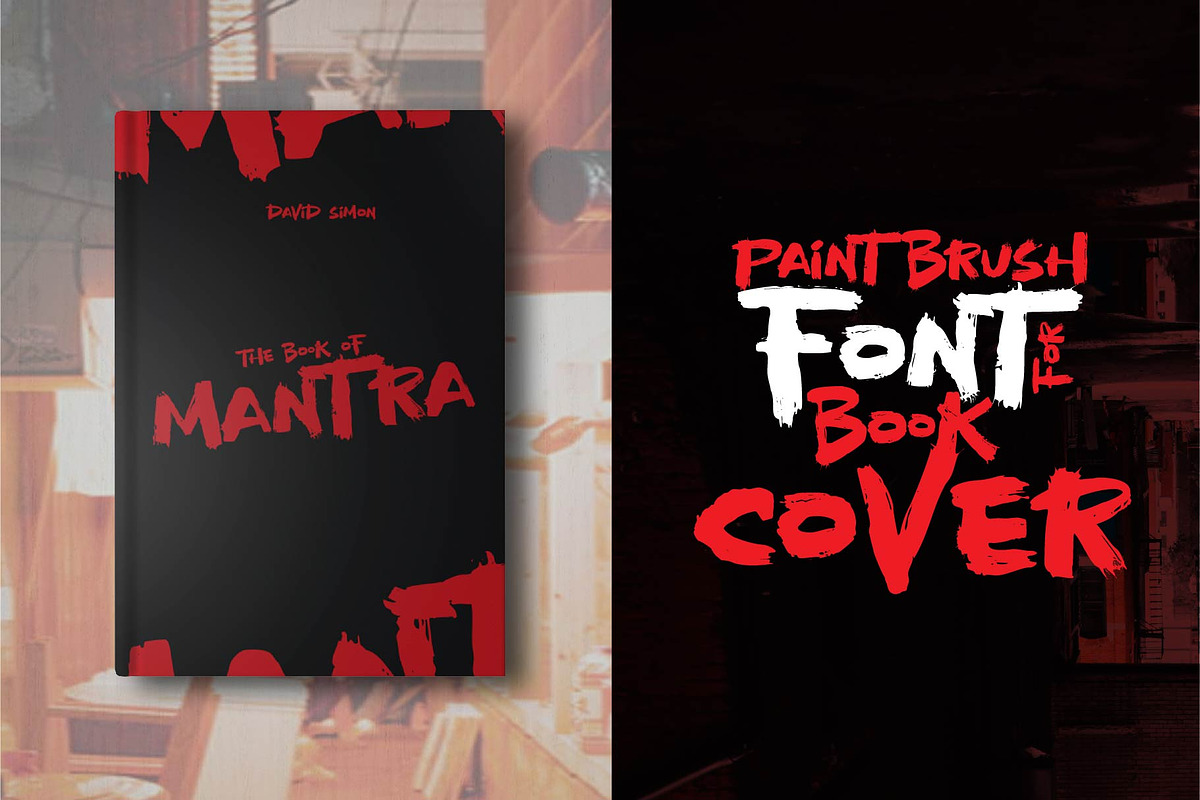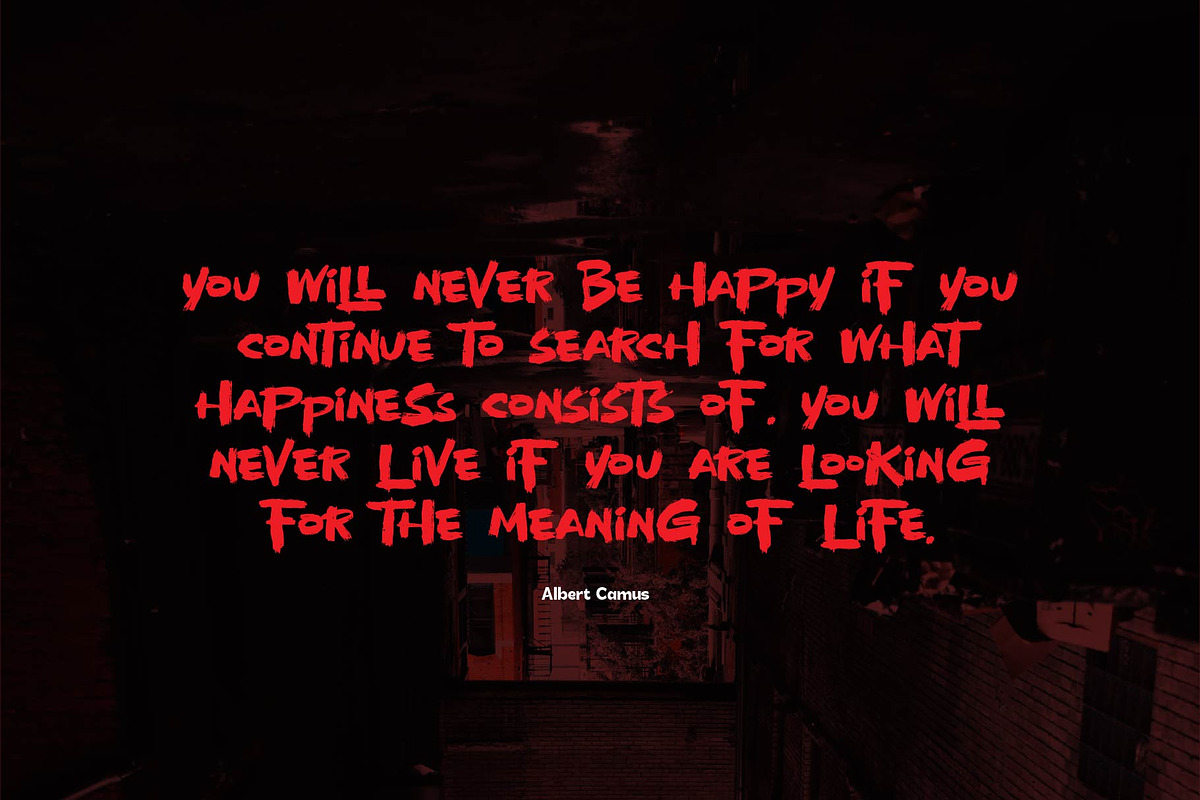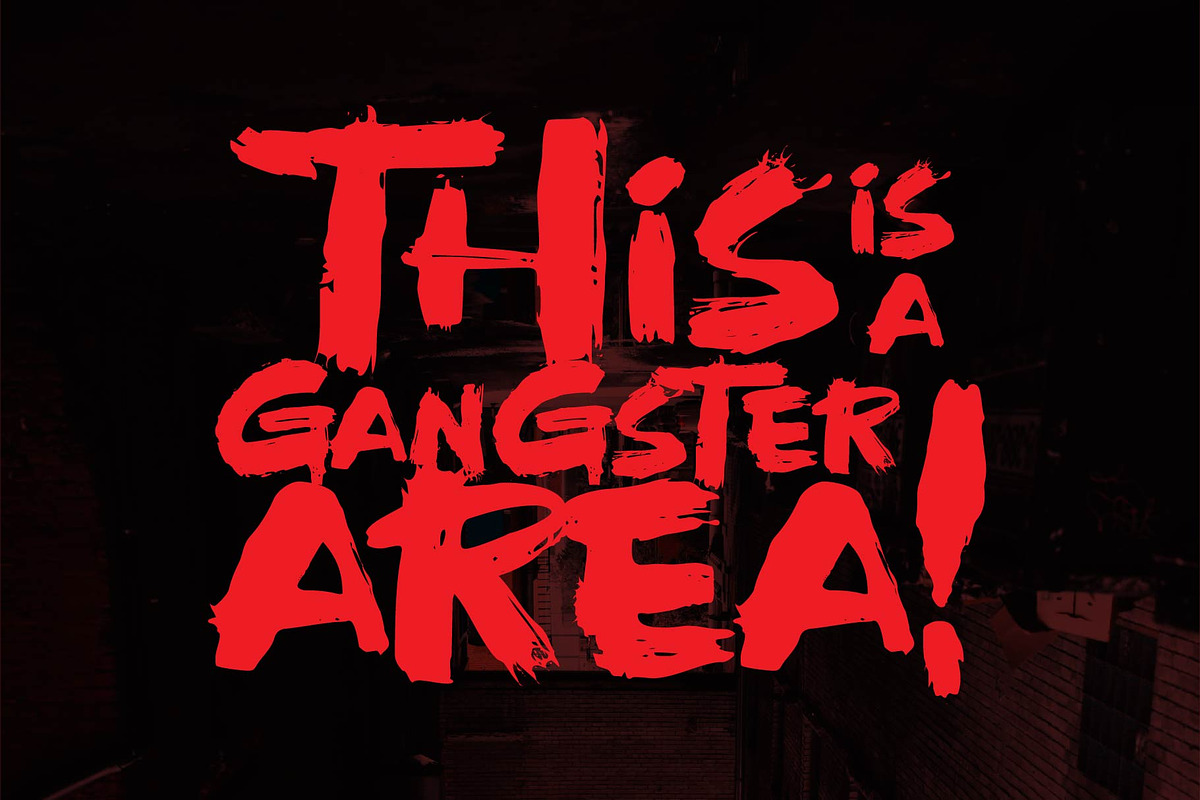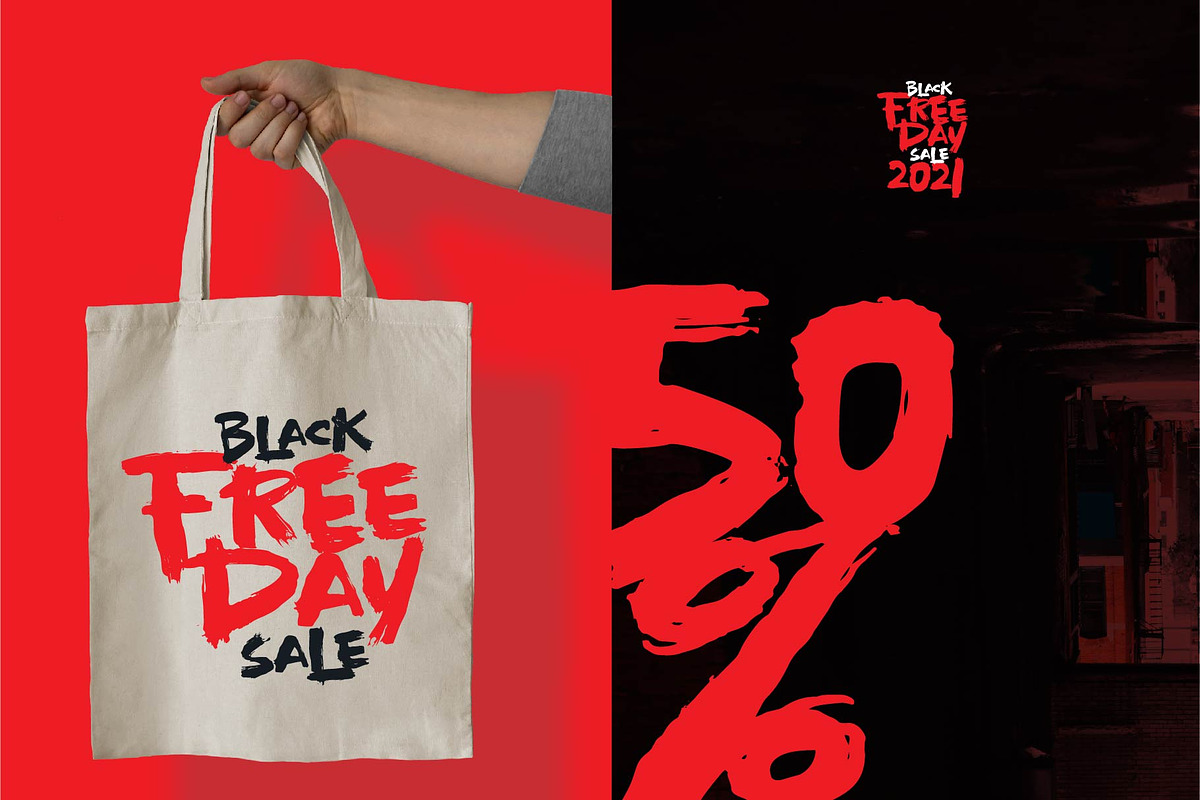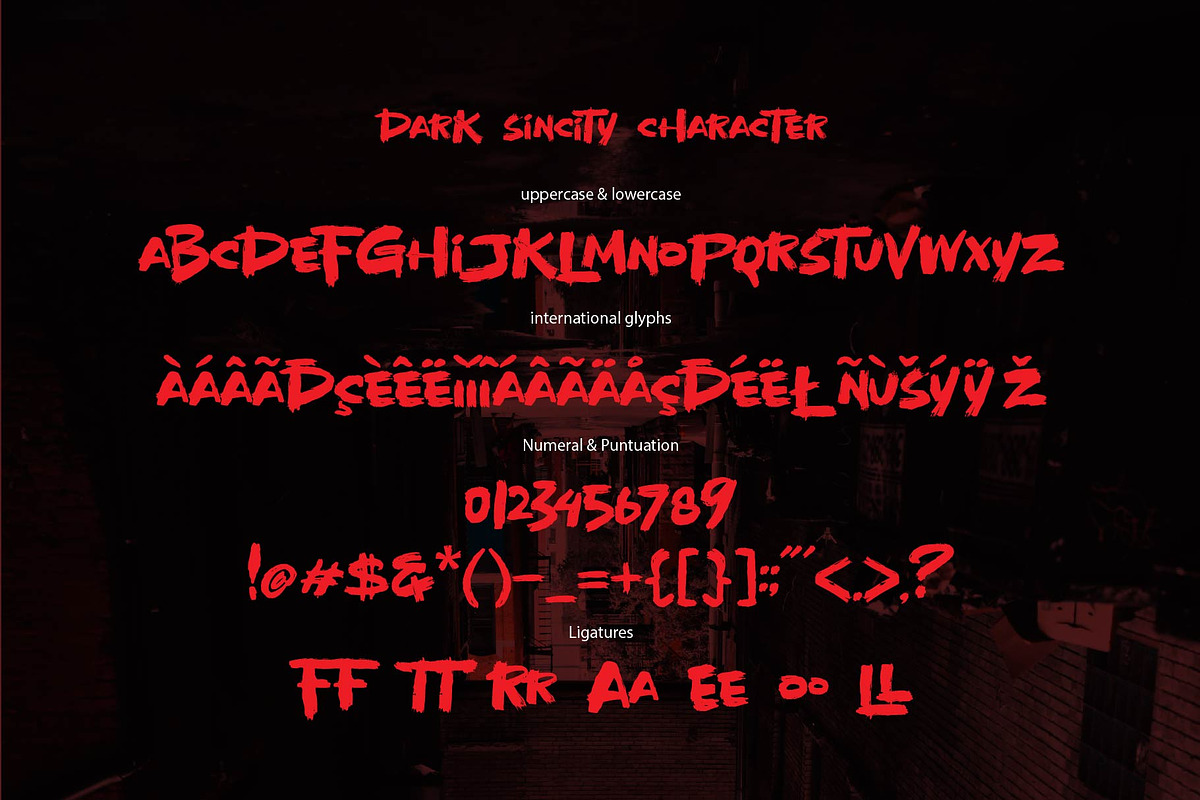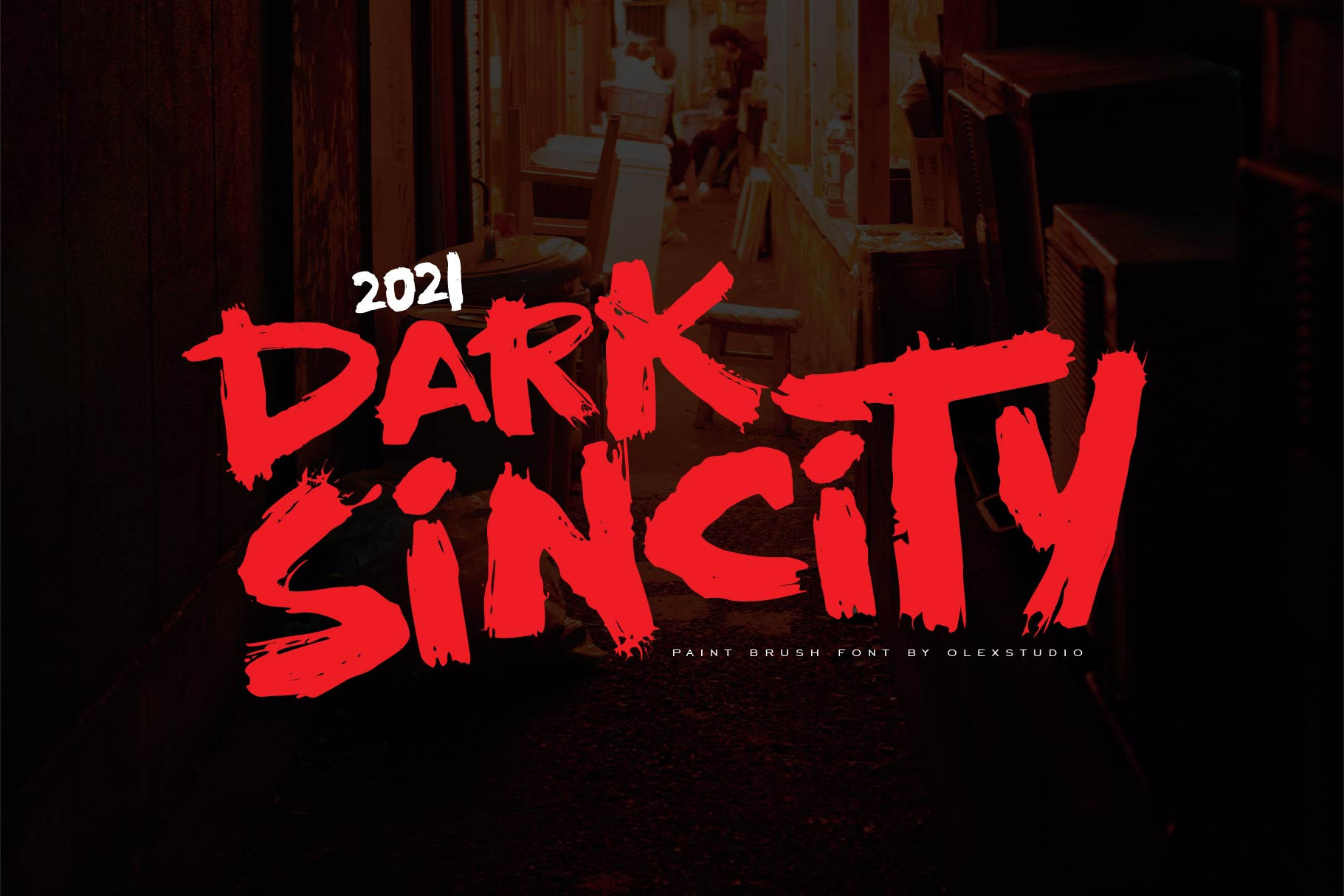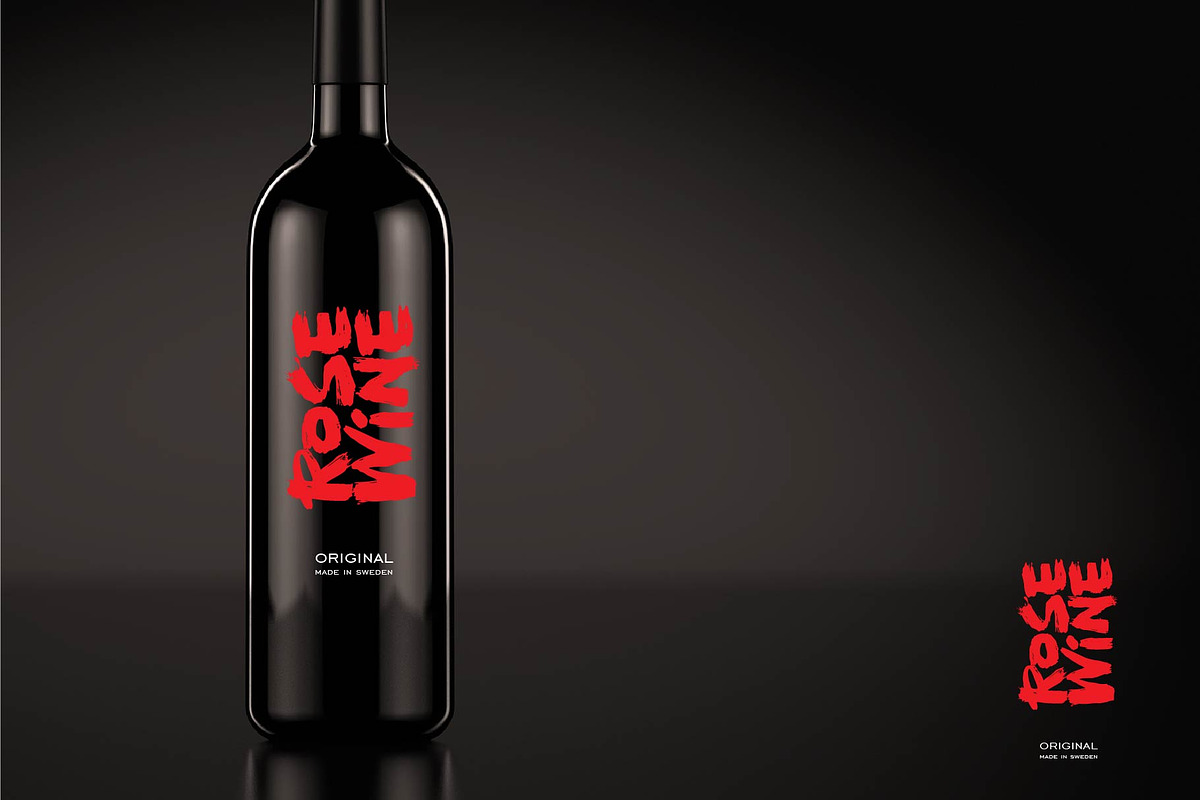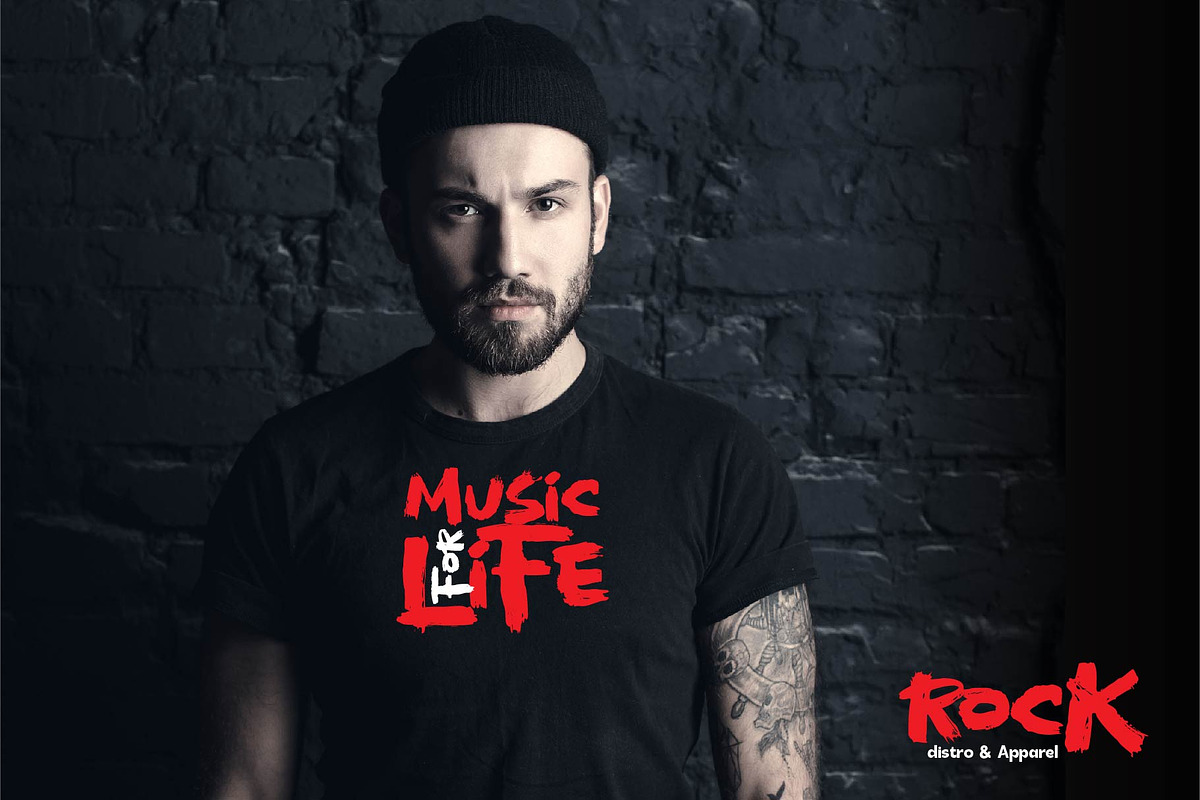
Dark Sincity - Display Font
Dark Sincity - Display Font will look gorgeous on all your designs, invitation, poster design, book design, branding materials, logo's, t-shirt and all project design other.
Dark Sincity - Display Font contains standard characters, all Glyphs is uppercase, numbers, punctuation, ligatures and international glyphs. You will receive OTF, TTF files & WEBFONT.